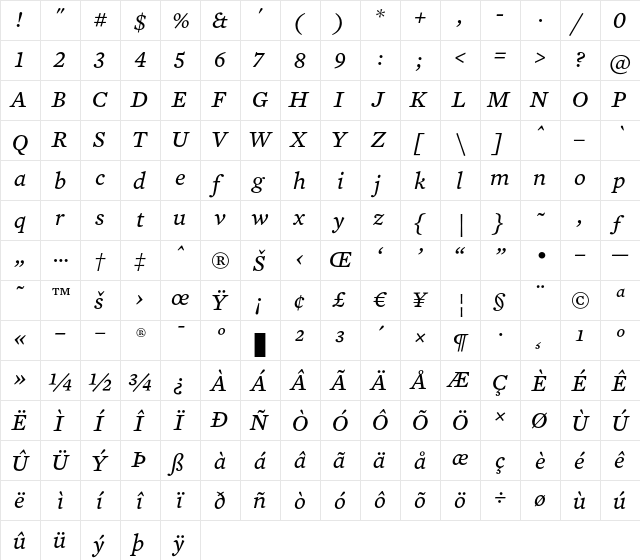
Mercury Text G3 Italic
Design Context for Mercury Text G3 Typeface
Mercury Text G3 takes a measured approach to typography — its balanced proportions and neutral character make it a reliable workhorse for both digital and print work. The slanted form adds forward momentum and visual energy.
Pro Tip: Use Mercury Text G3 for emphasis, pull quotes, and subheadings where its slanted energy can add rhythm to the layout.